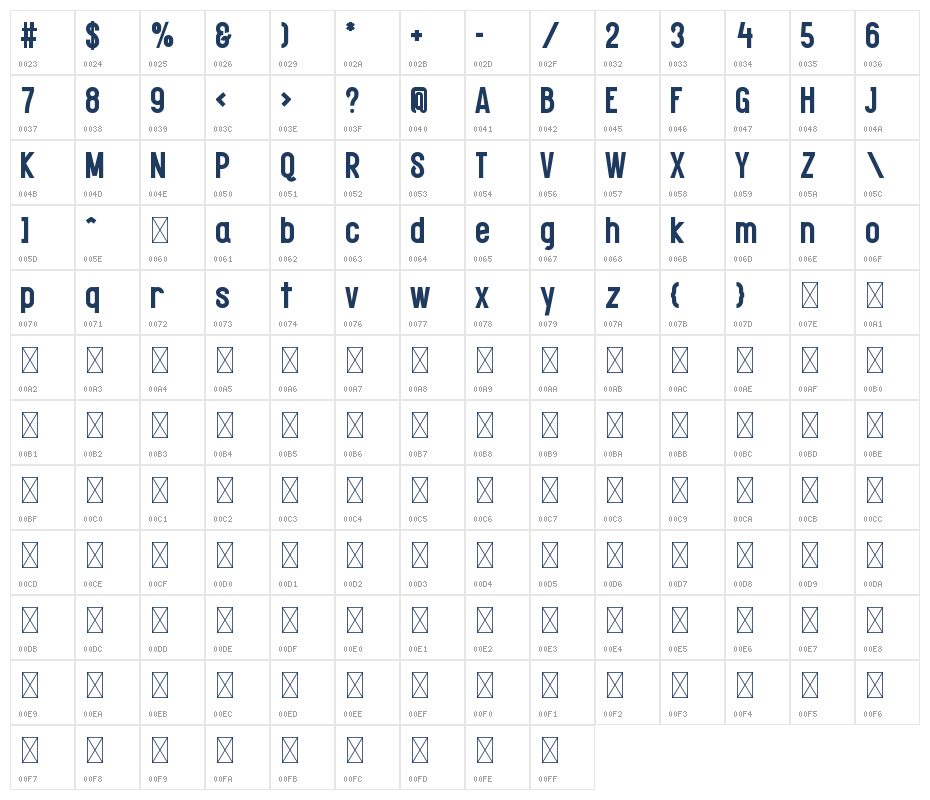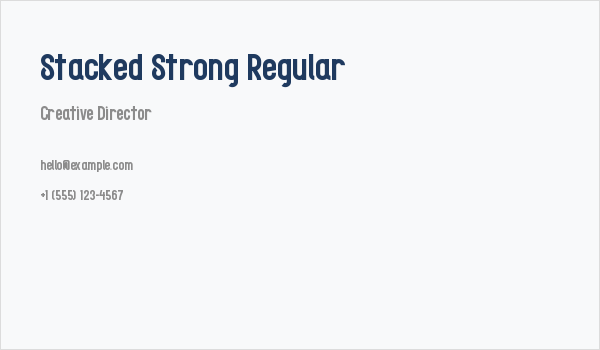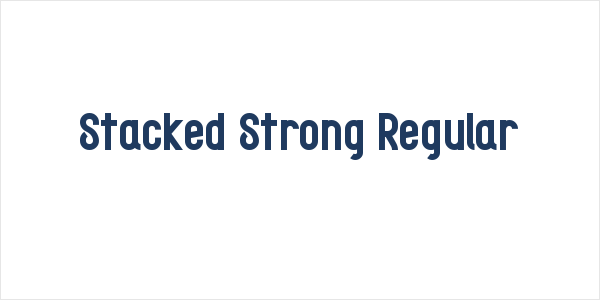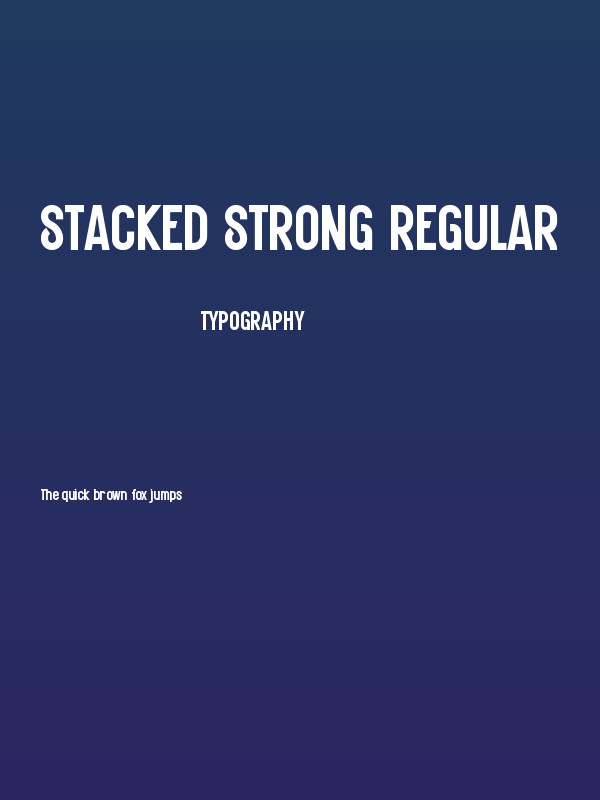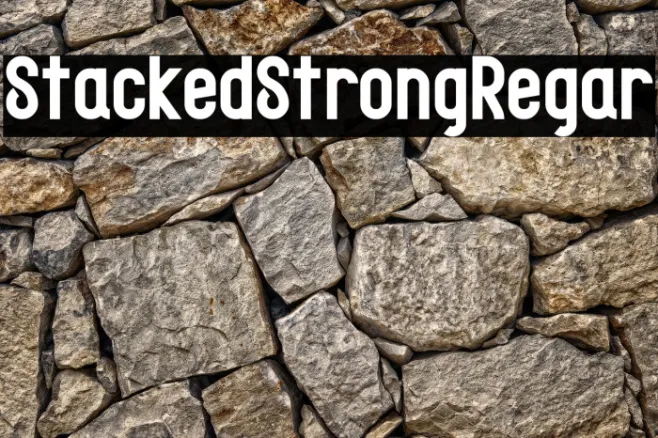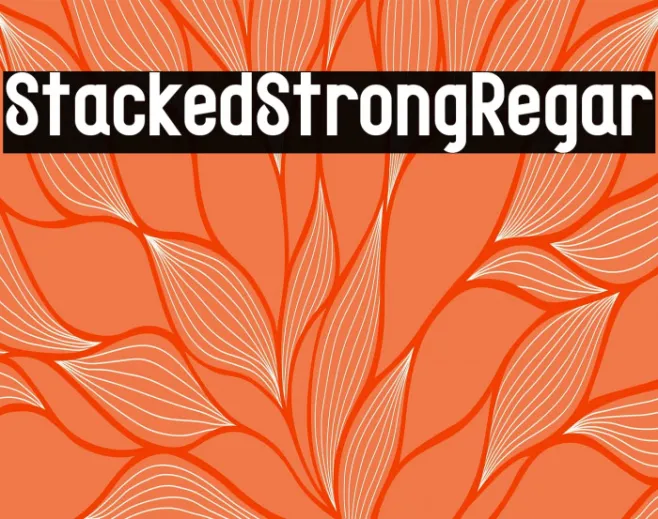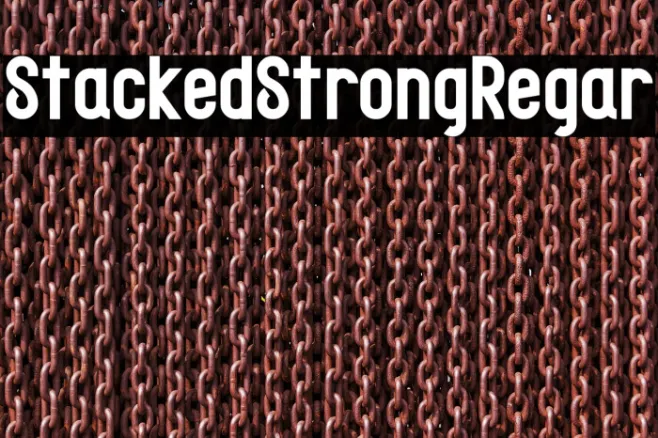
Stacked Strong Regular Font
Stacked Strong Regular Description
Bold, geometric sans-serif font with uniform stroke width and slightly rounded edges, designed for clarity and impact.
| Overall Style | Modern, Geometric |